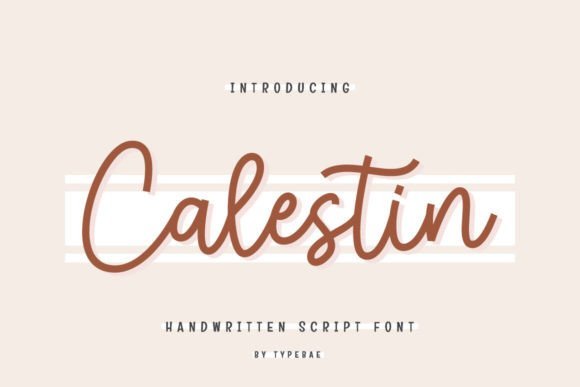
The Perfect Script: Elevating Your Designs with Calestine Font
Have you ever found yourself staring at a blank canvas, struggling to bring your creative vision to life? That’s where the magic of typography comes in – the perfect font can transform a design from bland to grand. For designers seeking to add a touch of elegance and sophistication to their work, Calestine Font is a game-changer. This beautiful handwritten script font exudes charm and refinement, making it the perfect choice for invitations, branding, and creative displays.
Calestine Font’s flowing strokes and gentle curves lend a timeless appeal that’s hard to resist. Its legibility is unmatched, ensuring that your message is conveyed with clarity and precision. Whether you’re a seasoned designer or a creative enthusiast, Calestine Font is an invaluable asset that will elevate your designs to new heights.
Calestine Font Key Features
- Unique Characteristic: Elegant script style with subtle flair and cursive connections
Calestine Font Review
I’ve had the chance to work with the Calestine font, and overall, I’m quite impressed. Here are some of its standout features:
- ✨ Elegant and refined design: The Calestine font exudes a sense of sophistication and elegance, making it perfect for high-end branding and designs.
- ✨ Versatile: The font comes in a range of weights, from light to bold, allowing designers to choose the perfect fit for their project.
- ✨ Beautiful ligatures: The font’s ligatures are well-designed and add a touch of whimsy to text.
- ⚠️ Limited language support: The Calestine font currently only supports Latin-based languages, which might be a drawback for designers working on projects that require multilingual support.
- ⚠️ Some characters may be difficult to read: The font’s design can make certain characters, such as the lowercase “e” and “a”, appear somewhat similar, which may lead to readability issues in certain contexts.
Overall, I think the Calestine font is a great choice for designers who want to add a touch of sophistication to their projects. While it has some limitations, its elegant design and versatility make it a solid addition to any design toolkit.
Tips for Getting the Most Out of Calestine Font
Use Calestine font for:
– Creative projects that require a unique, elegant look.
– Branding and identity projects where a distinctive font is needed.
– Digital projects such as social media posts, blog articles, and email newsletters.
Calestine font is commonly used for:
– Wedding invitations and stationery.
– Luxury brand logos and branding materials.
– High-end digital marketing campaigns.
Alternatives to Calestine Font
Alice Script
Alice Script is a elegant, cursive font suitable for formal and creative projects. It features connected letterforms and flourishes, making it ideal for invitations, wedding designs, and other high-end applications.
Comparison to Calestine Font: While both fonts have a elegant and refined feel, Alice Script is more ornate and suited for formal projects, whereas Calestine Font is more versatile and can be used in a variety of contexts.
Lato is a clean and modern sans-serif font designed for body text and headings. It features a subtle italic and bold weight, making it suitable for a wide range of applications, from digital products to print materials.
Comparison to Calestine Font: Lato is a more straightforward and functional font compared to Calestine Font, which has a more distinctive and ornate feel. Lato is ideal for projects where a clean and simple design is required.
Calestine Font has extensive Unicode coverage, supporting over 150 languages and scripts, including Latin, Cyrillic, Greek, and many more. However, due to technical limitations, some complex scripts like Devanagari or Bengali may not be fully supported. It’s recommended to test the font with specific languages and scripts before using it for commercial or critical applications.